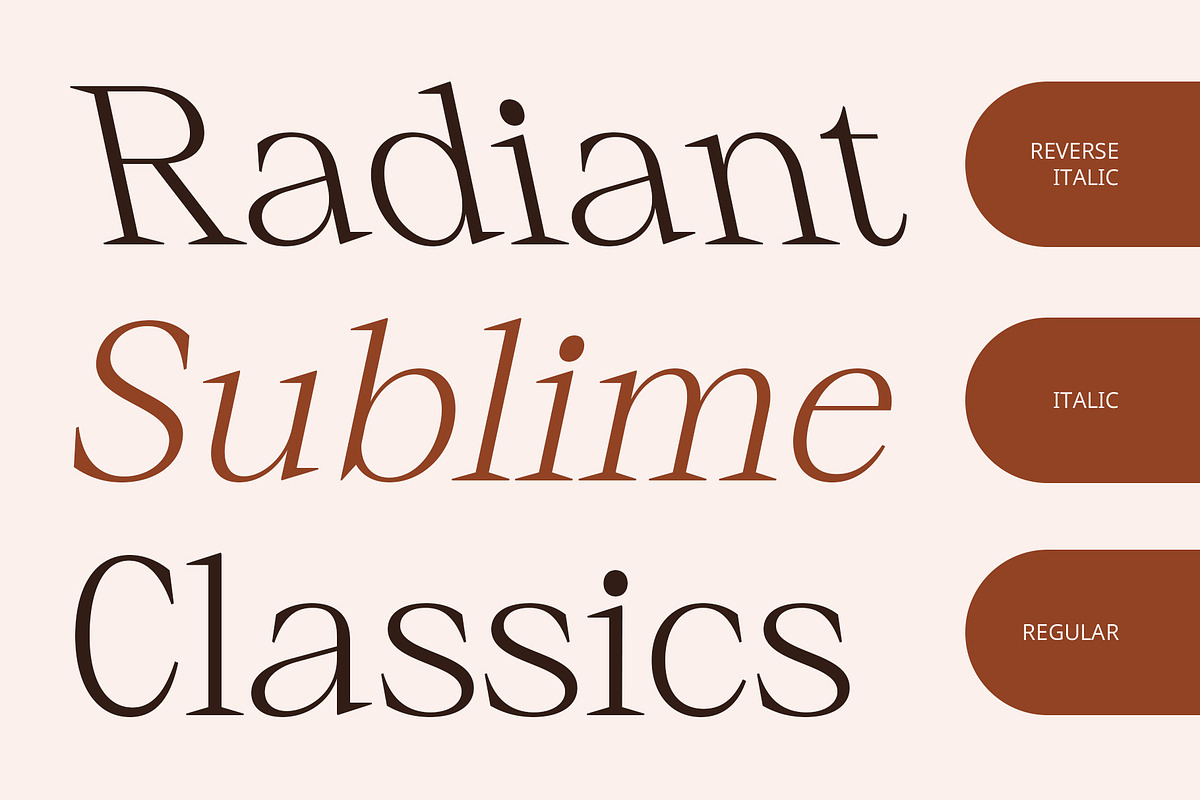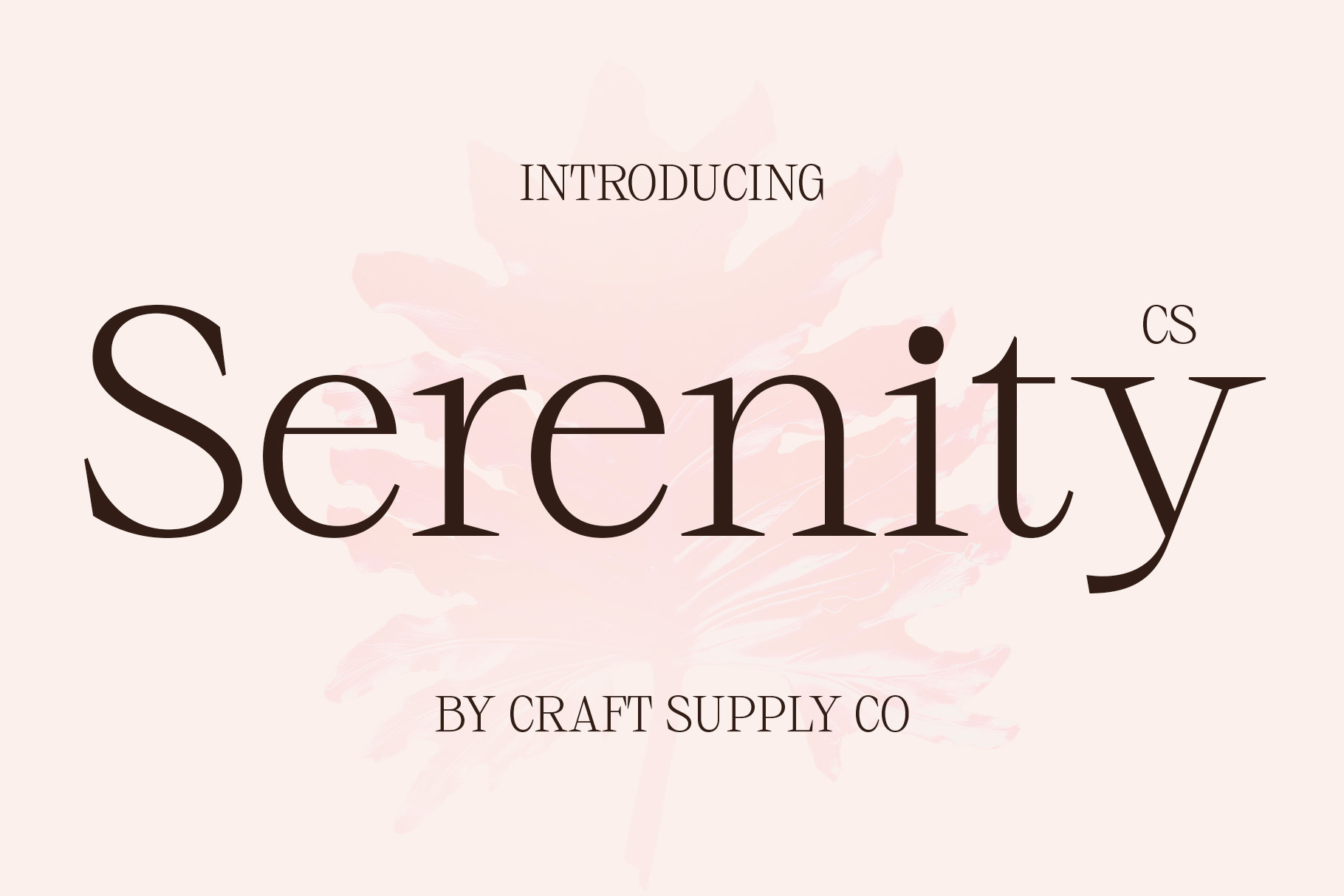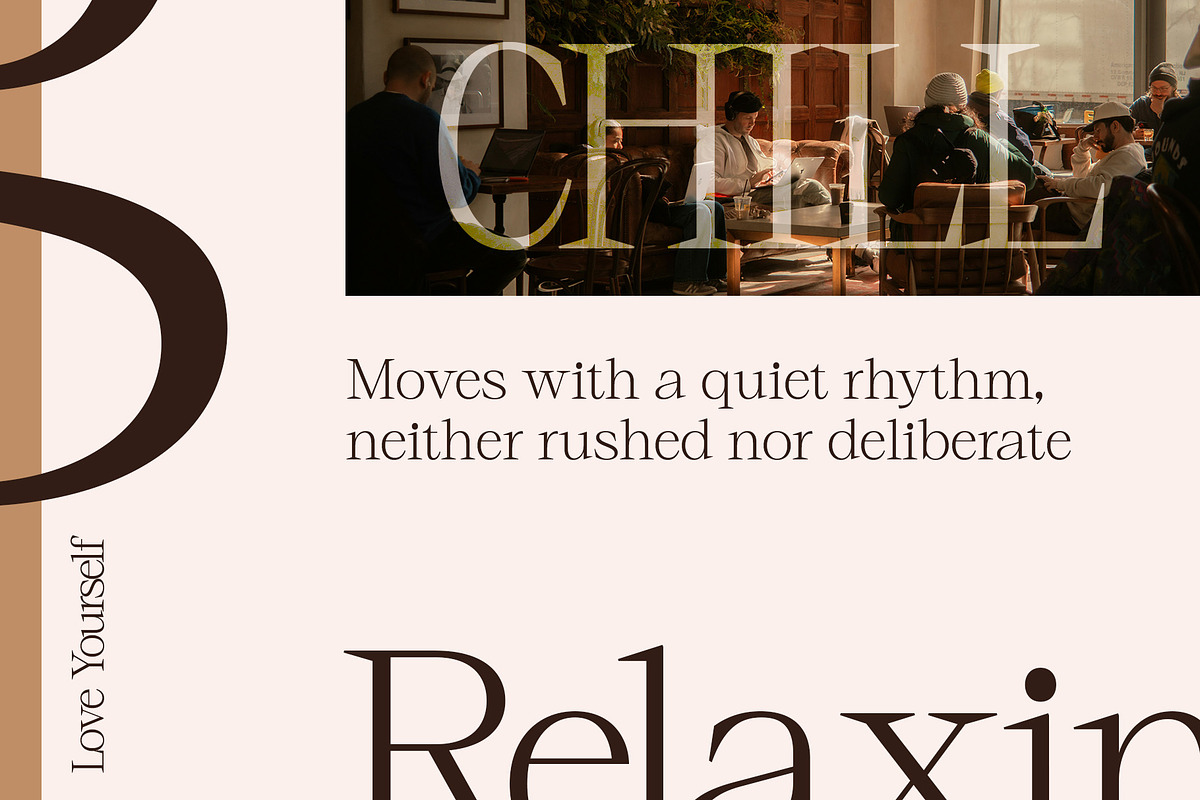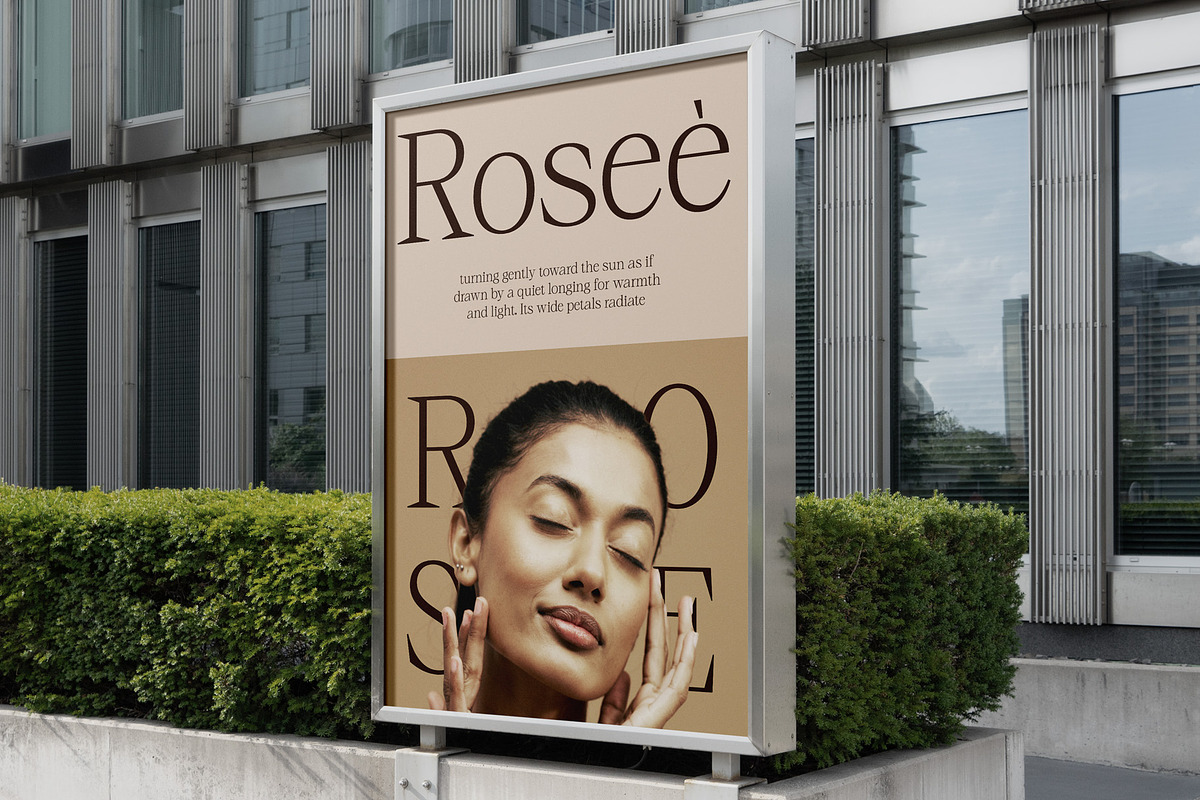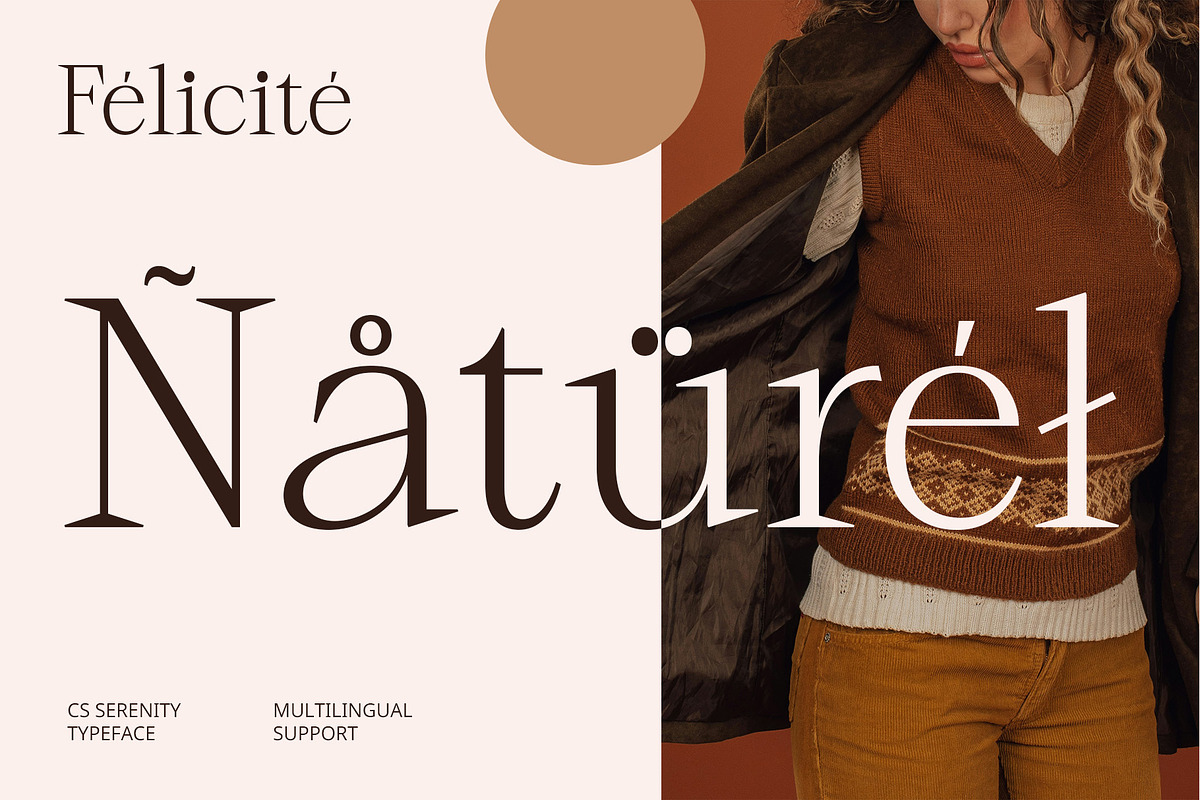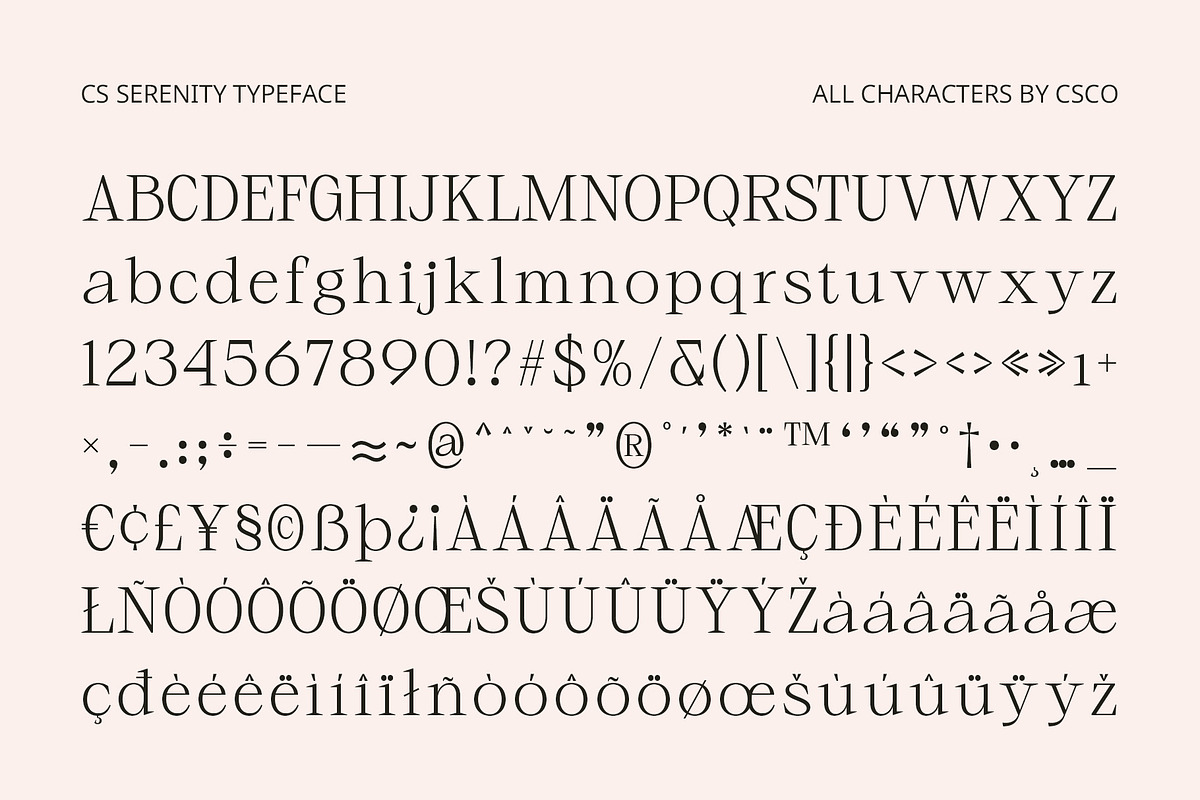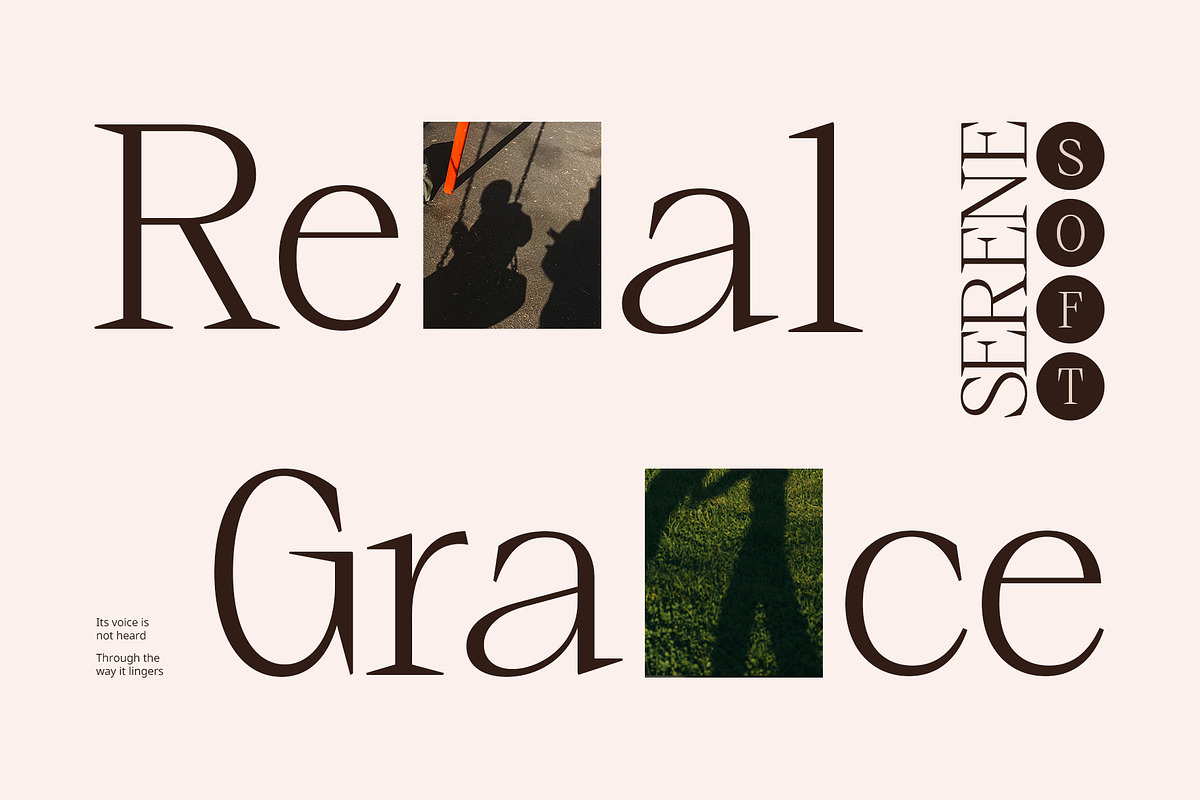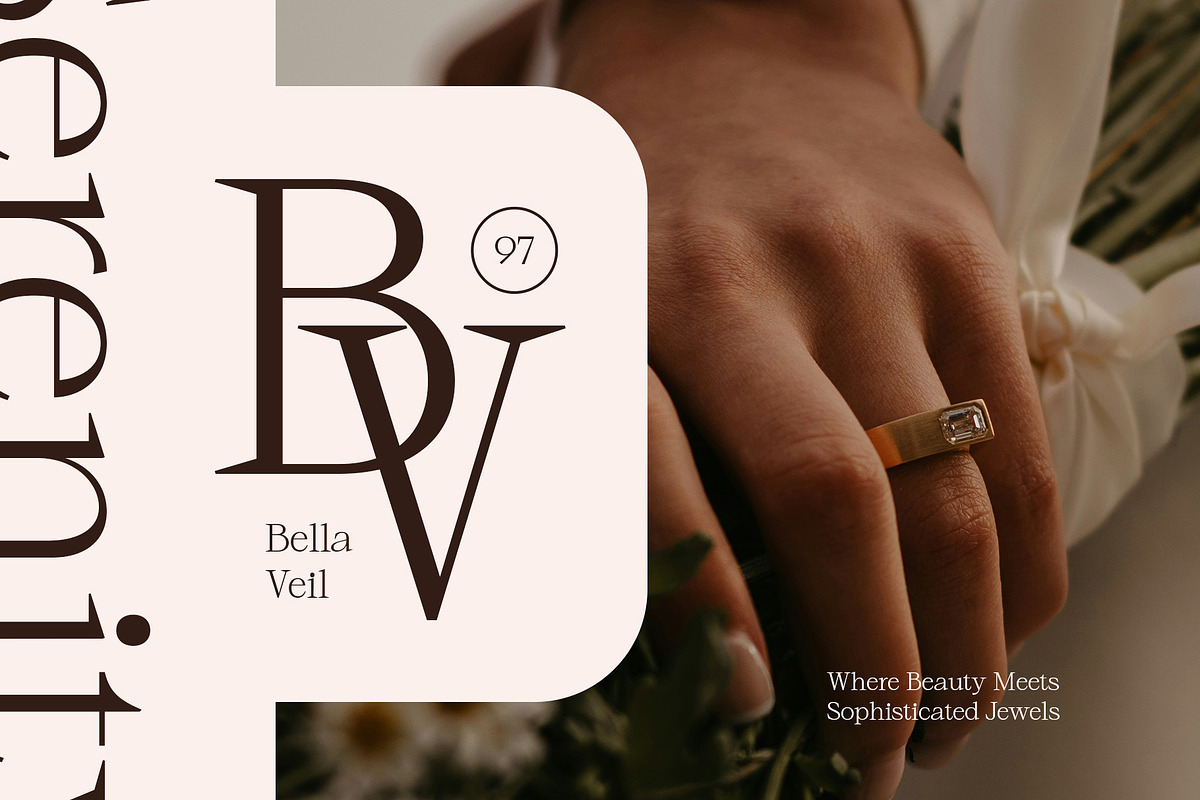
CS Serenity – Elegant Font
CS Serenity – Elegant Font: Grace in Every Detail
A Harmonious Blend of Classic and Contemporary CS Serenity is a modern serif font that beautifully balances timeless sophistication with modern minimalism. Featuring clean lines and sharp wedge-shaped terminals, it presents a look that is both refined and impactful. This elegant typeface is designed to convey clarity, confidence, and grace—perfect for high-end, polished visuals.
Refined Proportions and Graceful Structure Each letter in CS Serenity is crafted with careful attention to proportion and form, ensuring a harmonious and visually balanced appearance. The subtle contrasts and sleek curves lend the font a delicate strength, while its precision and clarity support readability in both large and small sizes. It offers a sleek, upscale feel that elevates the tone of any design.
Minimalist Elegance for Lasting Impressions CS Serenity’s minimalist approach doesn’t sacrifice personality. Its sharp terminals and elegant shapes create subtle drama, adding character to text without overwhelming it. It is this quiet confidence that makes CS Serenity suitable for premium and understated design solutions. With its modern serif style and tasteful elegance, CS Serenity excels in editorial layouts, luxury branding, fashion campaigns, and professional identities.
- CS Serenity Regular
- CS Serenity Italic
- CS Serenity Reverse Italic